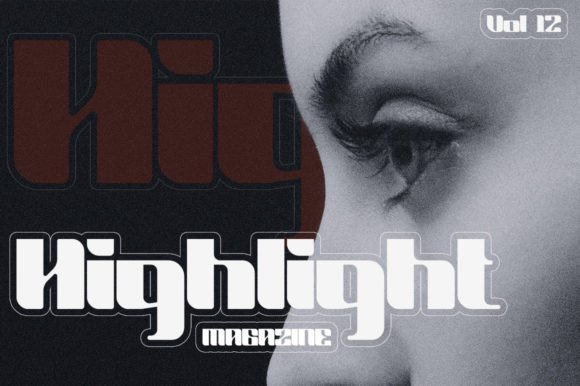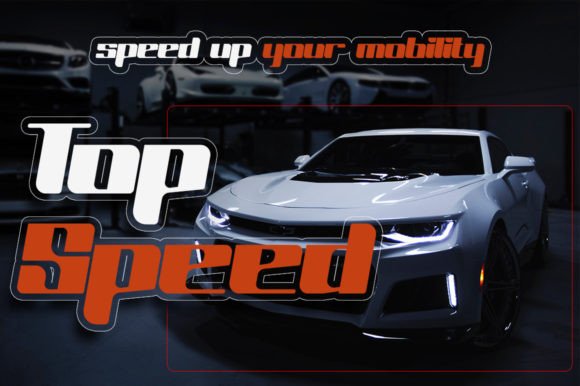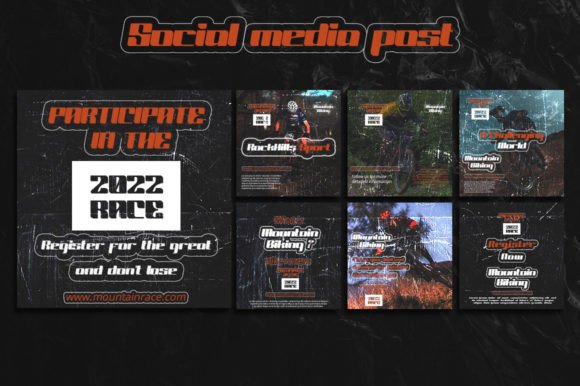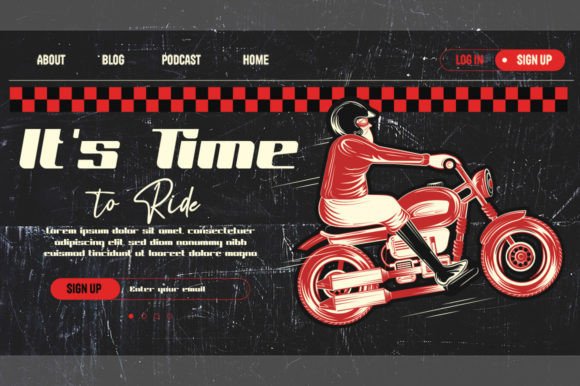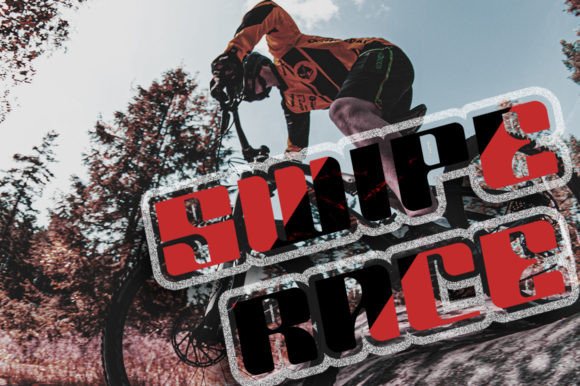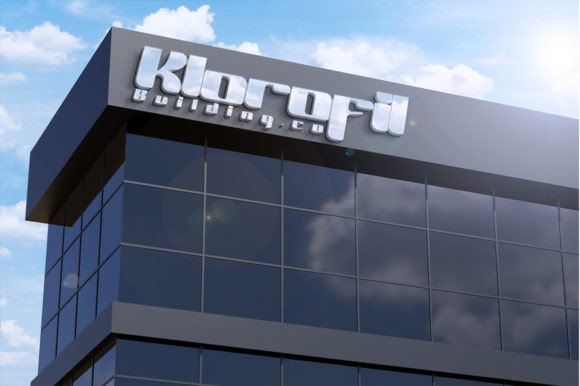
The Ultimate Guide to Black Box Font: Unleashing Bold Typography
I’ll never forget the time I was working on a sports brand project, tasked with creating a bold and eye-catching logo. As I scrolled through font after font, nothing seemed to capture the essence of the brand. That was until I stumbled upon Black Box Font. This modern sans serif font with a unique twist instantly resonated with the project’s theme. In this article, I’ll share my experience with Black Box Font, its features, and how to make the most of it in your designs.
An Honest Review of Black Box Font
Black Box Font has quickly become a staple in my font library, and for good reason. Here are some things I love about it:
• ✨ Unique and modern design: Black Box Font takes the basic model of a sans serif font and adds a fresh spin, making it perfect for designs that require a bold statement.
• ✅ Versatility: This font is suitable for a wide range of projects, from sports-themed products to techno-inspired designs.
• ✅ Easy to read: Despite its bold nature, Black Box Font remains clear and legible, even at smaller sizes.
While Black Box Font is an excellent choice, it’s not without its quirks:
• 🤔 Limited use in formal contexts: Due to its bold and modern design, Black Box Font may not be the best fit for formal or traditional projects.
• ⚠️ Glyph limitations: Some users have reported limited glyph options, which may restrict its use in certain design scenarios.
The Backstory of Black Box Font
Black Box Font was designed with the goal of creating a bold and modern sans serif font that would cater to the needs of designers seeking a unique touch. Inspired by the sleek lines and curves of sports cars and technological innovations, Black Box Font embodies the spirit of innovation and dynamism.
What type of projects is Black Box Font best suited for? Black Box Font is ideal for sports-themed products, techno-inspired designs, and any project that requires bold and daring typography.
Is Black Box Font suitable for body text? While Black Box Font is primarily designed for headings and titles, it can be used for body text in certain contexts. However, its bold nature may make it less suitable for extended reading.
Are there any OpenType features available in Black Box Font? Yes, Black Box Font offers OpenType features, including Stylistic Alternates and Glyphs, which can be accessed in compatible design software.